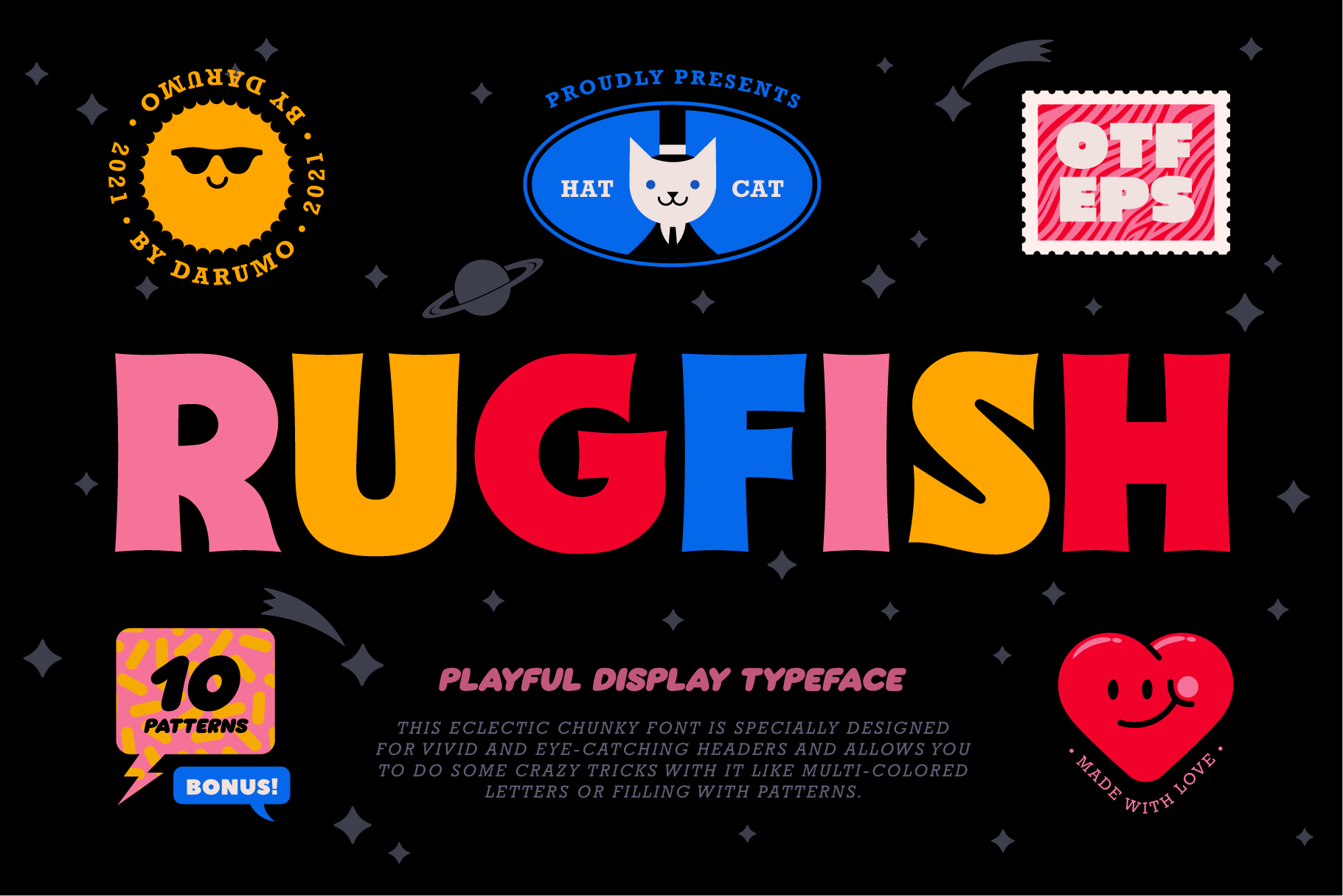
Rugfish - Playful Display Font
Introducing Rugfish, a playful chunky font with a cheerful and slightly infantile mood. This eclectic chunky font is specially designed for vivid and eye-catching headers and allows you to do some crazy tricks with it like multi-colored letters or filling with patterns. Perfect for logo/emblem design, package design, etc. Also, it works really well if you are designing any kind of product for kids. Have fun using it!